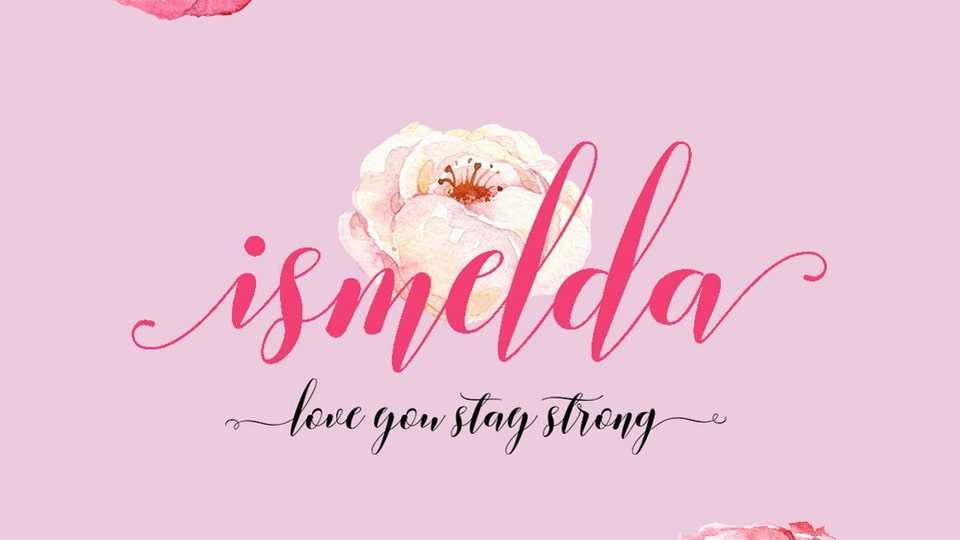
Download Ismelda font, a beautiful and refined script typeface. It has a classy, elegant and modern look that can be used for logos, branding, invitations and so on.